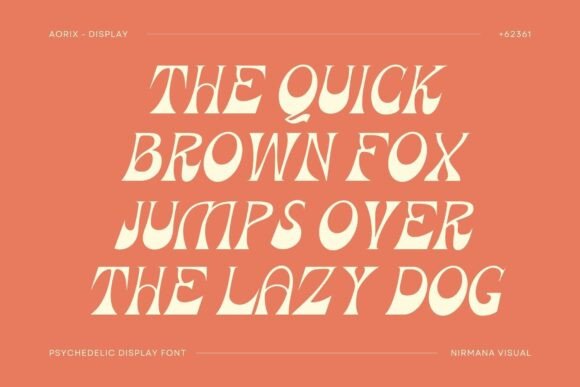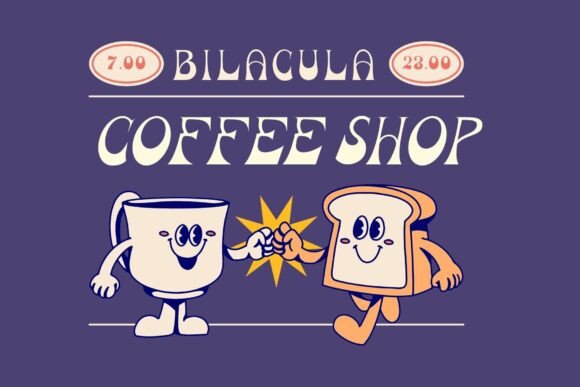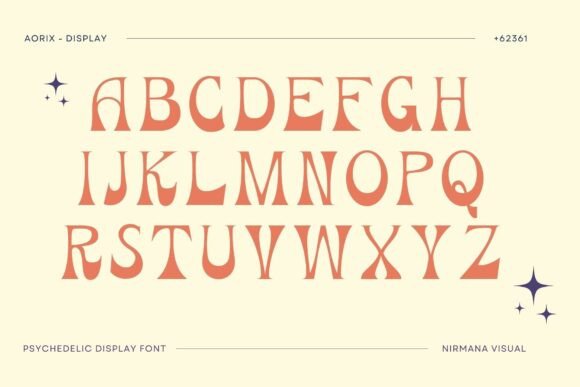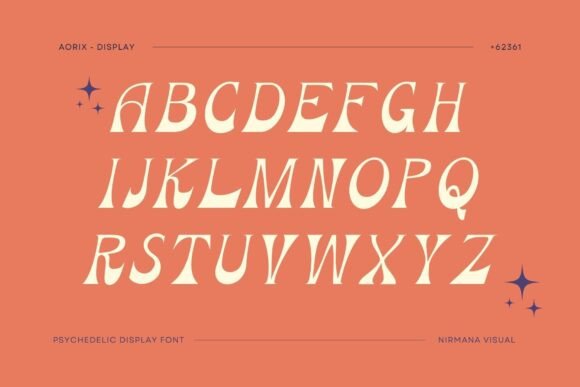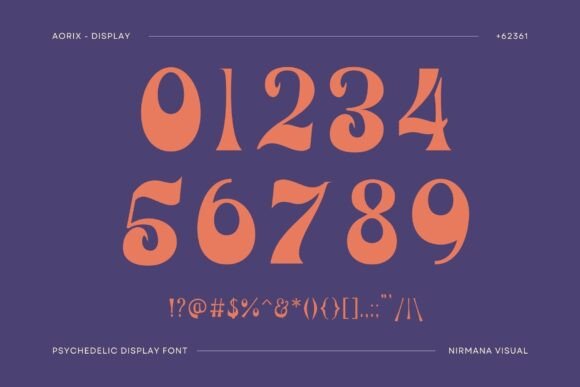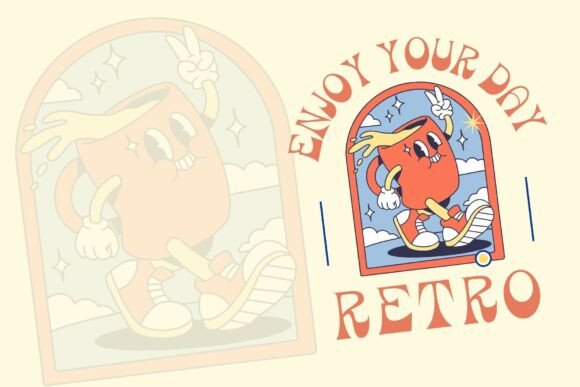
The Groovy World of Aorix Psychedelic Font
I still remember the design project that led me down the rabbit hole of psychedelic fonts. I was working on a retro-themed poster for a music festival, and I needed a font that would transport people back to the 1960s counterculture movement. After hours of searching, I stumbled upon the Aorix Psychedelic Font, and it was love at first sight! ✨ The vibrant colors, intricate patterns, and mind-bending designs instantly captured the essence of the era. In this article, I’ll share my experience with Aorix Psychedelic Font, its features, and how to make the most of it in your designs.
- 🌈 Vibrant and bold letterforms that evoke a sense of freedom and experimentation
- 🔍 Intricate details and patterns that add depth to any design
- 💃 Flowing lines and exaggerated curves that create a sense of movement and fluidity
- 🎨 Highly versatile and suitable for various design projects, from posters to branding
While Aorix Psychedelic Font is an amazing addition to any design project, there are a few things to keep in mind: 🤔
- ⚠️ Some letters may appear distorted or irregular, which can be a challenge when using it for body text
- ⚠️ Limited legibility at small font sizes, making it best suited for headlines or titles
Aorix Psychedelic Font was inspired by the iconic designers of the 1960s counterculture movement, such as Peter Max and Wes Wilson. These designers were known for their bold, colorful, and experimental approach to design, which continues to influence artists and designers today.
| Font Name | Aorix Psychedelic Font |
| Author | Sigit Dwipa |
A: Aorix Psychedelic Font is best used for headlines, titles, or short phrases, where its bold and colorful letterforms can shine.
A: While Aorix Psychedelic Font is stunning for headlines, it’s not ideal for body text due to its limited legibility at small font sizes.